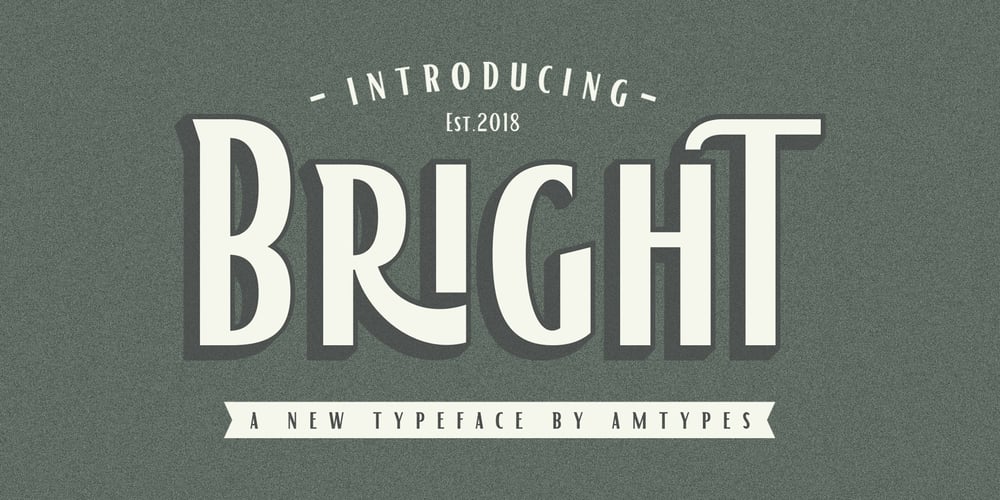
AM Bright Font Family was designed by Angga Mahardika and published by Angga Mahardika. AM Bright contains 1 styles and family package options. Bright is a sans serif typefaace with classic touch. This font has alternate characters, ligatures and multi language support. Bright font is perfect for the classic design logo, branding or product packaging, signage and more other creative project.I really hope you enjoy using Bright Font, please don’t hesitate to drop me a message if you have any question :)Thanks,